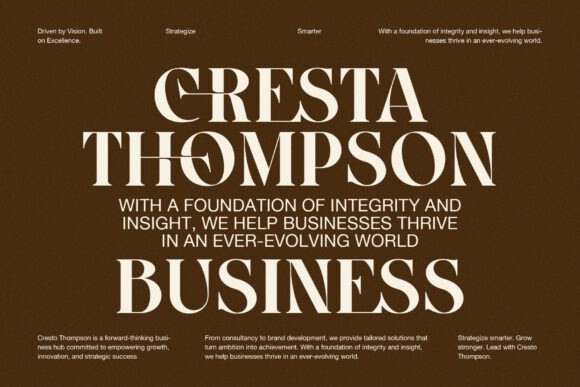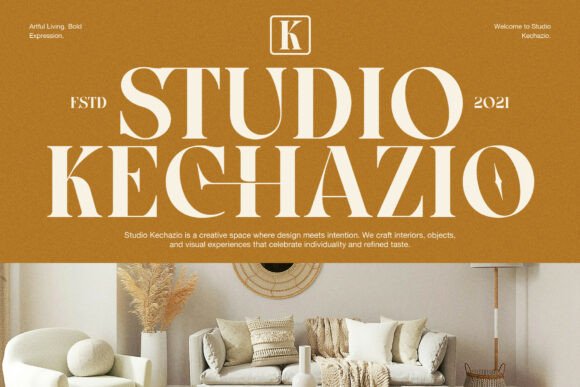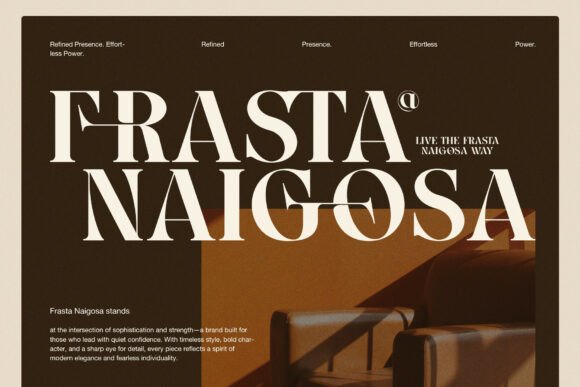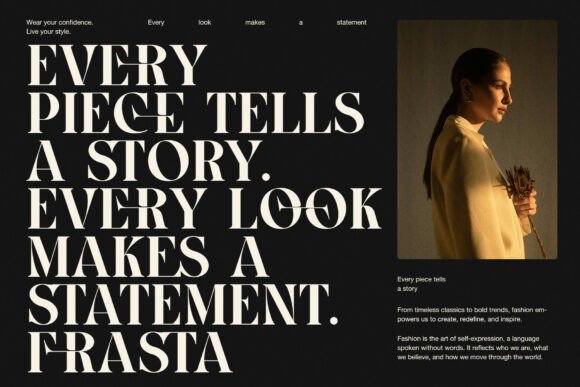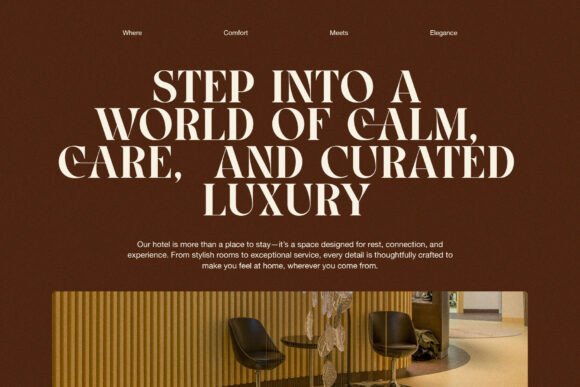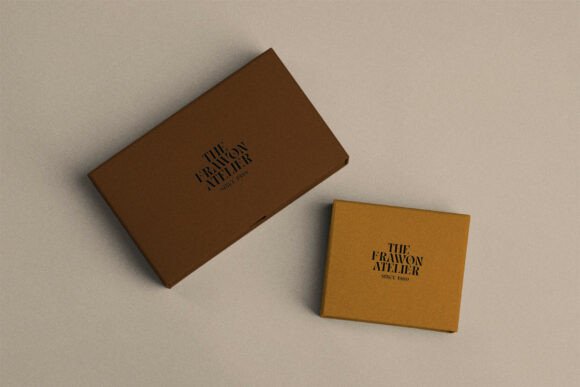
The Elegance of Groch Font: A Designer’s Delight
I still remember the project like it was yesterday. I was working on a luxury brand’s brochure, and my client was adamant that the font had to convey a sense of timeless elegance. I scoured the internet, tried countless fonts, but nothing seemed to fit the bill. That was until I stumbled upon Groch Font. ✨
Groch is an elegant serif display font that embodies the perfect blend of beauty, emotion, and refined character. Inspired by editorial design and modern luxury aesthetics, this font combines graceful curves with confident serif structures, making it feel both timeless and fresh. In this article, I’ll share my experience with Groch, its features, and how to make the most of it in your designs.
- ✨ Smooth contrast and delicate terminals that enhance visual flow
- ✅ Artistic details that add a touch of sophistication
- ✅ Stylish alternates and carefully crafted ligatures for a distinctive look
- ✅ Works beautifully in headlines and branding
While Groch is an excellent font, there are a few things to keep in mind: 🤔
- ⚠️ May not be suitable for body text due to its elegant, display nature
- ⚠️ Some characters may require manual kerning for optimal spacing
The Backstory of Groch
Groch was designed with the intention of capturing the essence of luxury and elegance. Its creator drew inspiration from the world of editorial design and modern luxury aesthetics, aiming to craft a font that would feel both timeless and contemporary. The result is a font that exudes sophistication and refinement, perfect for designers seeking to elevate their typography.
Q: Is Groch suitable for body text?
A: While Groch is an elegant font, it’s primarily designed for display purposes. It may not be the best choice for body text due to its delicate nature.
Q: Does Groch support OpenType features?
A: Yes, Groch includes a range of OpenType features, such as stylistic alternates, ligatures, and glyphs, allowing you to create unique and personalized typography.